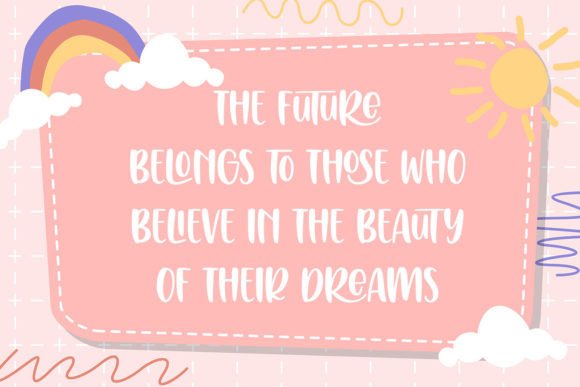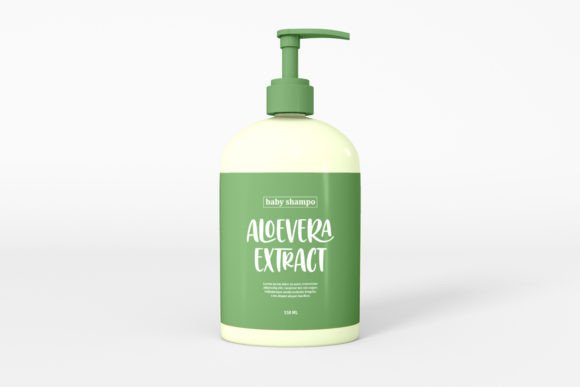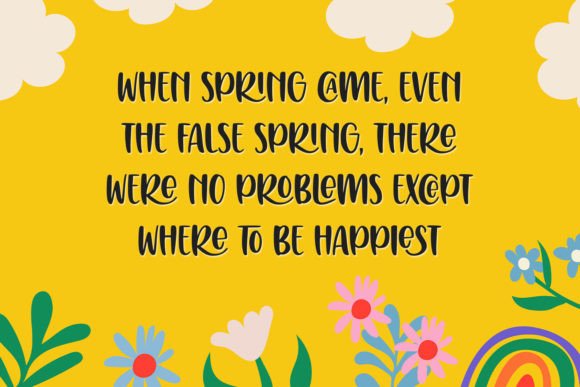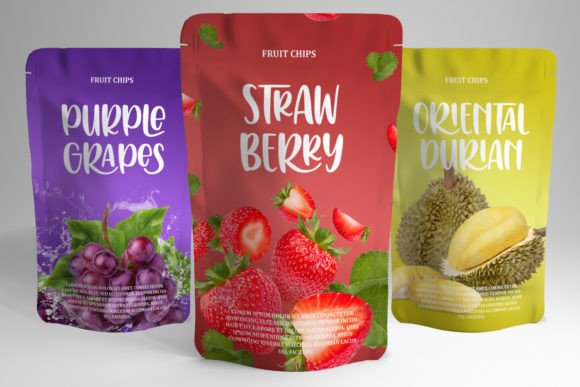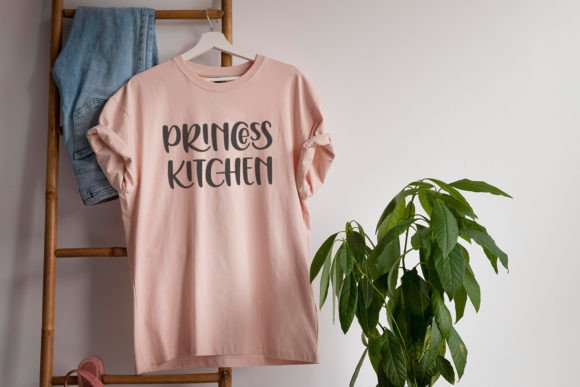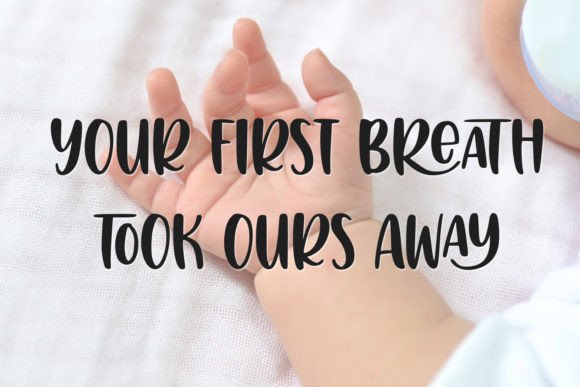
Introduction to Rollade Font
Have you ever stared at a blank canvas, wondering what creative spark will ignite your next project? For designers, finding the perfect font can be just that moment of inspiration. One such font that’s sure to spark joy is the Rollade Font, a delightful display font that’s perfect for adding a touch of whimsy to your designs.
With its cute and friendly feel, the Rollade Font is ideal for a wide range of creative projects, from quotes and logos to t-shirt designs, tote bag designs, and even crafts. Whether you’re working on a personal project or a client’s design, this font is sure to bring a smile to your face and add a professional touch to your work. Plus, with a transparent background option, you can easily layer it over your designs for a seamless look.
Key Features of Rollade Font
- Includes a range of glyphs and characters to suit various design needs
- Perfect for use in digital and print design, including logos, graphics, and more
Honest Review: Rollade Font
I recently stumbled upon the Rollade Font and I’m excited to share my thoughts on it. As a designer, I’m always on the lookout for high-quality design resources that can elevate my creative projects.
The Rollade Font is a great find! ✨ It’s a free download, which is always a bonus, and it comes with a transparent background, making it easy to use on any design project. The font itself is clean, modern, and perfect for a variety of creative projects, from logos to typography-based designs.
Here are some of the things that work well with the Rollade Font:
- High-quality design: The Rollade Font is well-designed and looks great on any project.
- Easy to use: The font is easy to download and use, with a transparent background that makes it easy to integrate into any design.
- Limited character set: The Rollade Font only includes a limited character set, which may not be suitable for all design projects.
- No bold or italic versions: While the font is clean and modern, it would be great to have bold and italic versions available for added versatility.
Overall, I’m impressed with the Rollade Font and would definitely recommend it to fellow designers. While it may have some limitations, it’s a great addition to any design resource collection.
Rollade Font is a high-quality design resource ideal for creative projects that require a unique and stylish touch. This versatile font is available for free download and features a transparent background, making it easy to customize and integrate into your designs.
Tips for Getting the Most Out of Rollade Font
To get the most out of Rollade Font, experiment with different font sizes, colors, and combinations to create unique and eye-catching designs. You can also use the font in conjunction with other design elements, such as images and graphics, to create a cohesive and engaging visual identity.
Rollade Font is ideal for a variety of creative projects, including social media graphics, presentations, logos, and typography-based art. It’s also a great resource for designers and artists looking for a unique and stylish font to add to their design library.